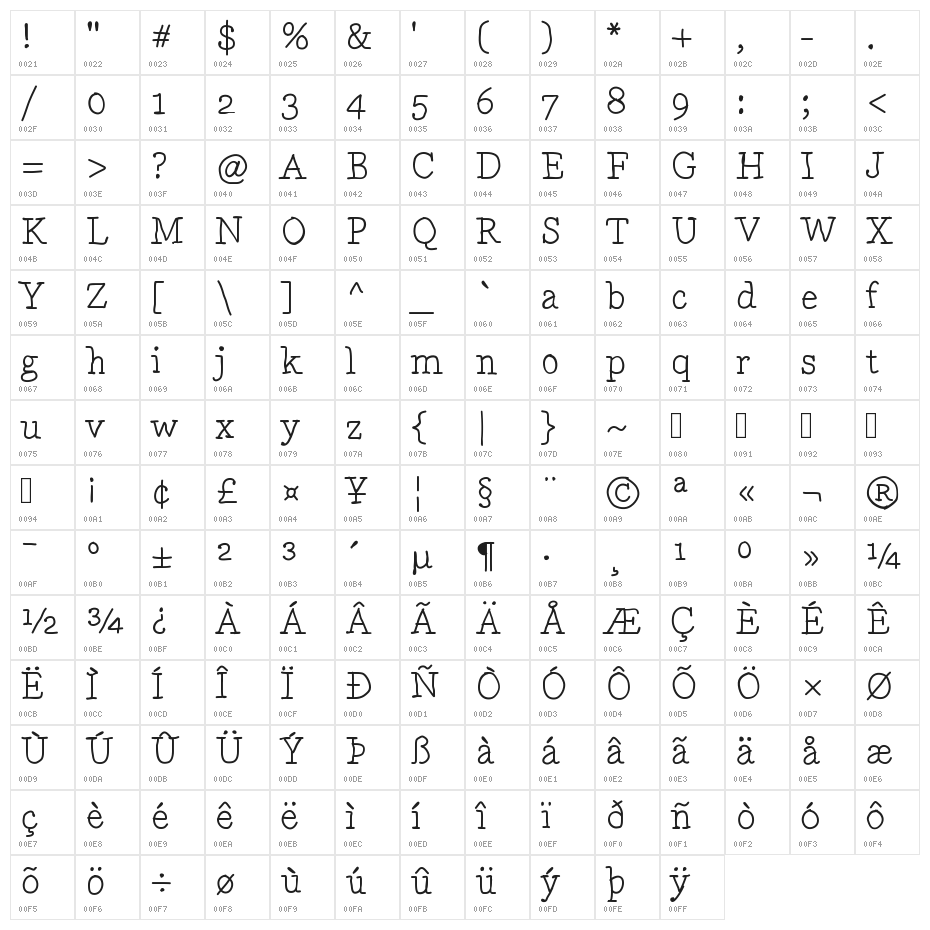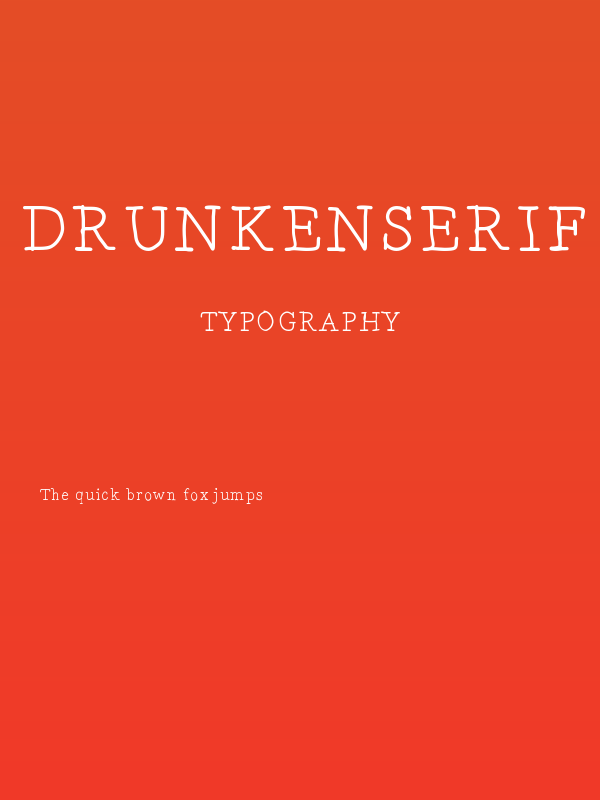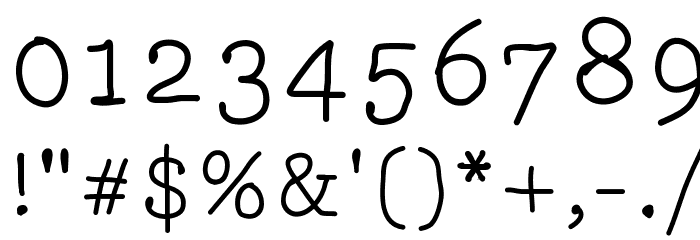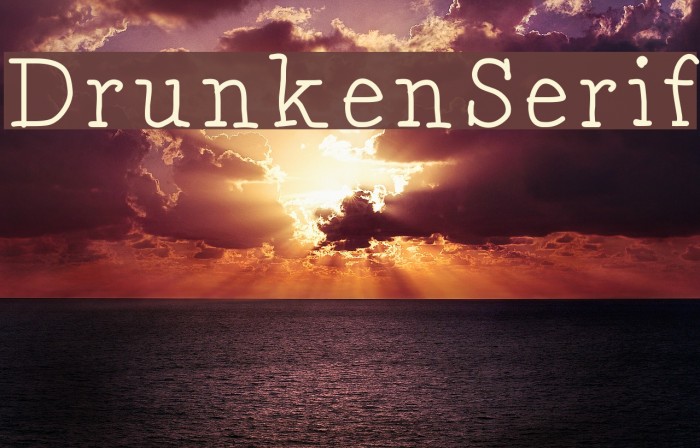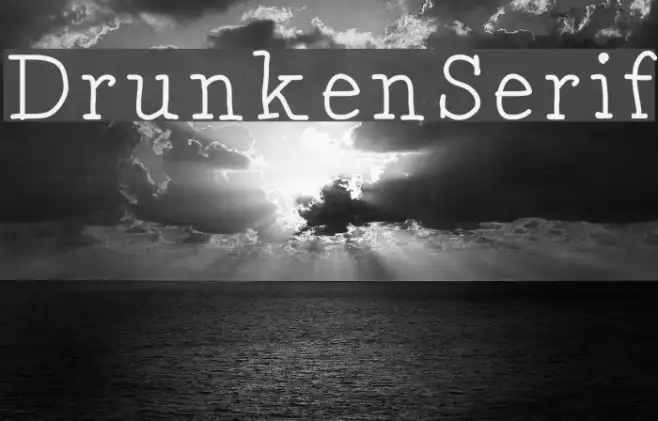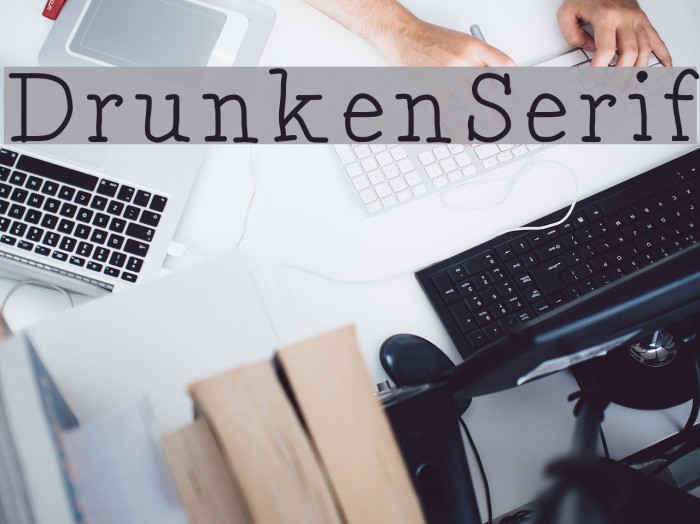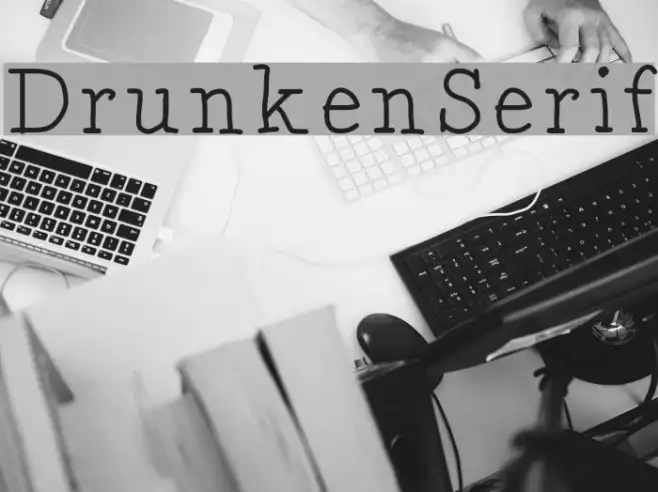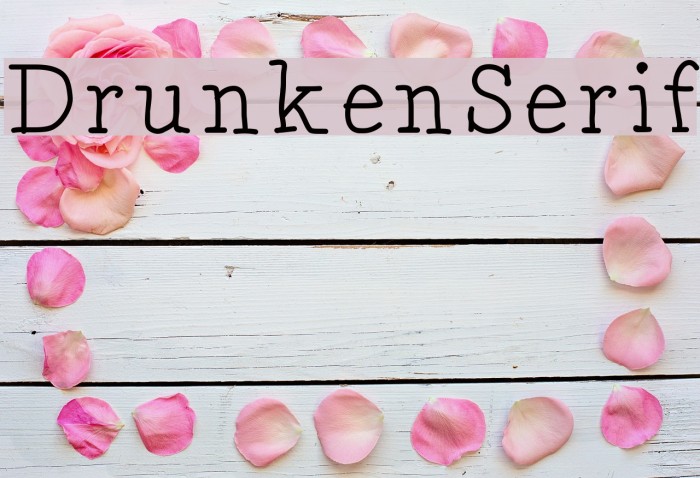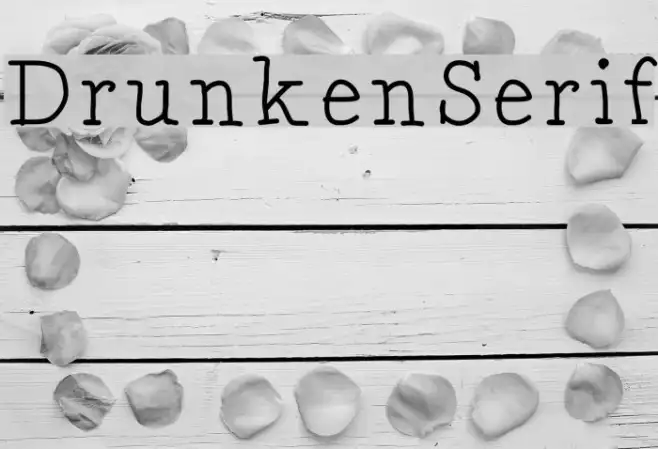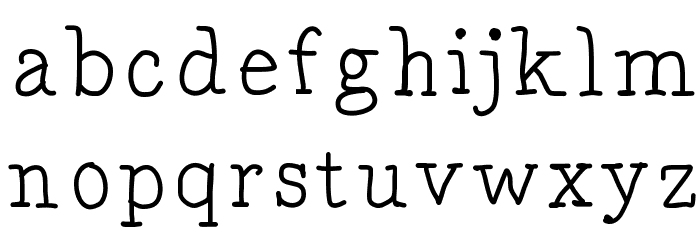
DrunkenSerif Font
DrunkenSerif Description
This font features a playful and whimsical design, characterized by its uneven and slightly wobbly strokes that give it a hand-drawn appearance. The serifs are irregular, adding to the quirky and informal feel. The letters have a moderate weight, providing a good balance between readability and style. The font maintains a consistent baseline, but the varying angles and curves of the characters create a dynamic and lively text flow. It includes a full set of uppercase and lowercase letters, numbers, and a variety of punctuation marks, making it versatile for different uses.
| Proposed Projects | Ideal for children's books, creative posters, casual invitations, and branding for playful or artistic products. |